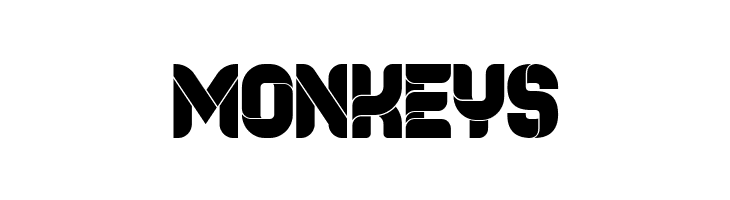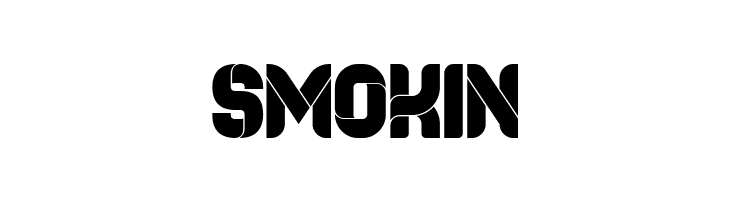
A bold, dynamic font with a slight slant and strong visual impact.
A playful, decorative font with a doodle-like pattern inside each character.
A bold, blocky font with characters enclosed in square frames, evoking a vintage or industrial aesthetic.
A bold, dynamic font with a modern, futuristic style and high contrast.
A bold, geometric font with strong, angular shapes and high visual impact.
A bold, pixelated font with a retro, digital aesthetic.
A bold, geometric font with a modern, segmented design.
An elegant script font with flowing, cursive style and intricate swashes.
A bold, modern font with thick strokes and unique curves.
A playful, hand-drawn font with a whimsical and friendly style.